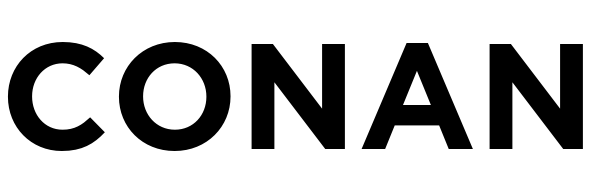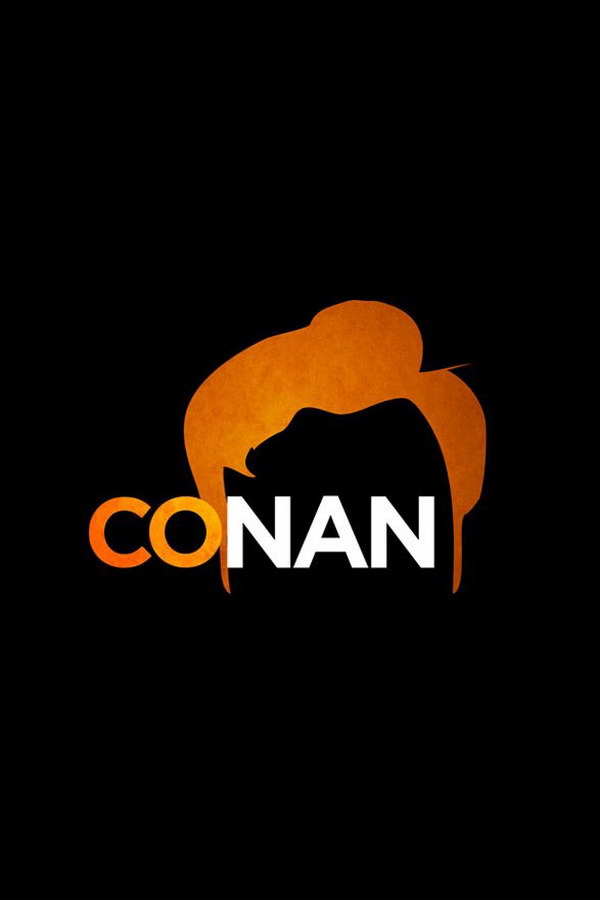
Conan Font
ComedyConan is a late-night talk show hosted by Conan O'Brien, known for its comedic sketches, celebrity interviews, and Conan's signature humor, offering a unique and entertaining perspective on popular culture for over 25 years.
The Conan logo showcases Conan O'Brien's distinctive hair silhouette, with the word "CONAN" written in a font resembling Gotham Bold, a geometric sans serif typeface from H&F. Further information on the Gotham font family can be found here.